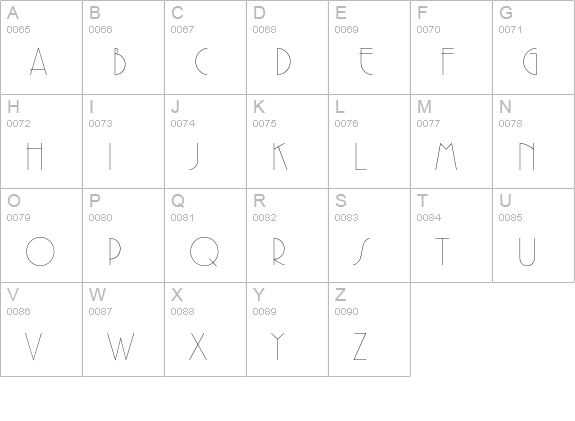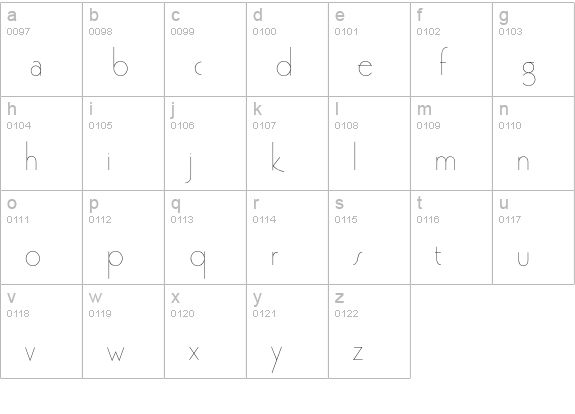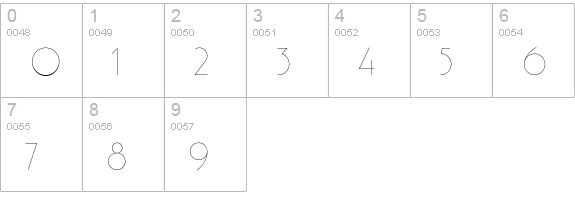
PremierEF is a modern and elegant font that exudes sophistication and style. Its sleek lines and sharp angles make it perfect for a wide range of design projects, from branding to editorial design. The versatility of PremierEF ensures that it can be used in both digital and print media, adding a touch of class to any layout. What sets PremierEF apart is not only its aesthetic appeal, but also the fact that it is available for free download at FontsMarket.com. This means that designers and creatives can access this high-quality font without any cost, making it a valuable resource for anyone looking to elevate their projects with a premium typeface. Whether you're working on a logo, website, or publication, PremierEF is sure to make a lasting impression with its clean and professional look. Download it for free today at FontsMarket.com and take your design projects to the next level.